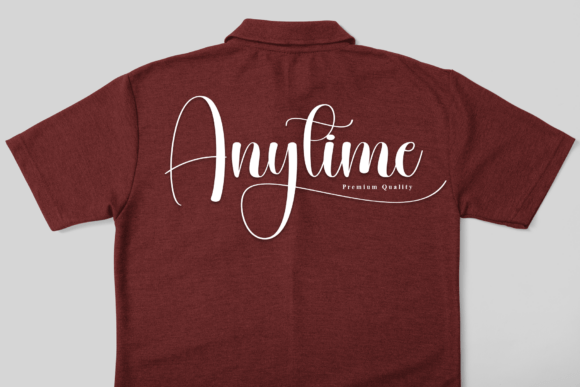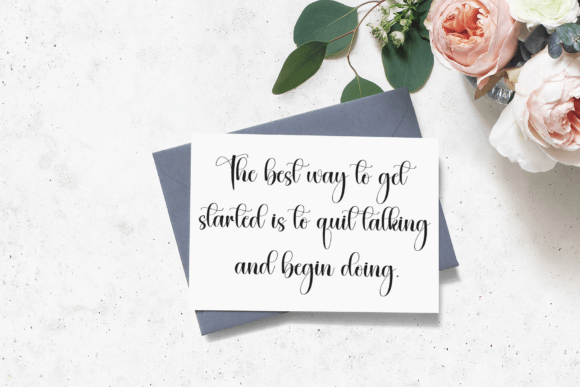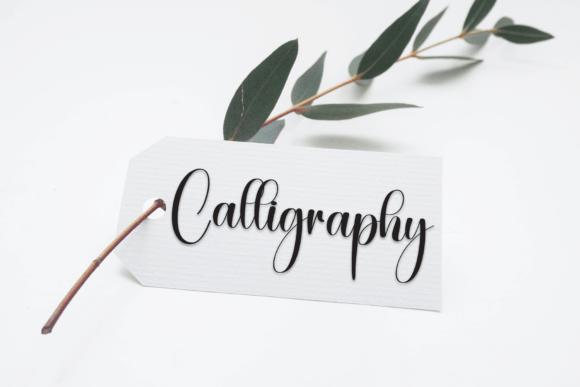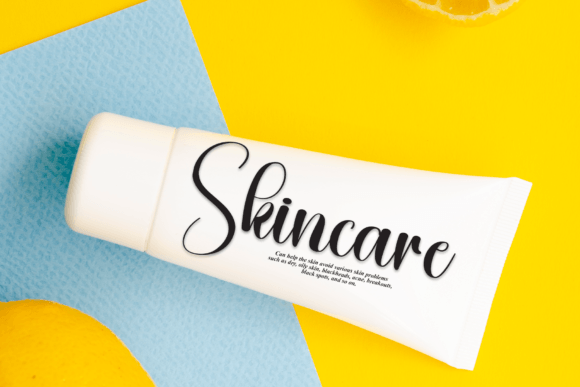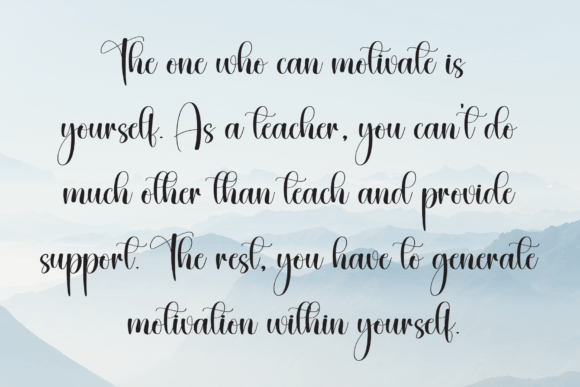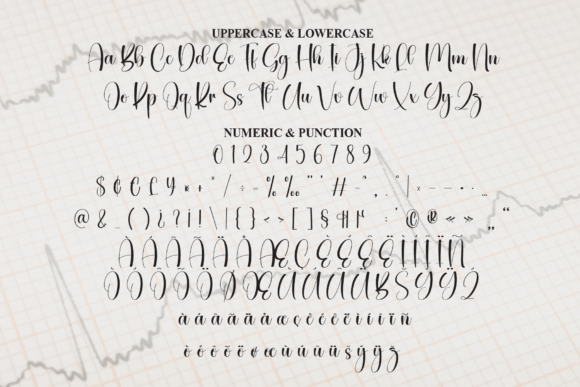
Introduction to Magnitude Font
Have you ever been brainstorming for hours, struggling to find the perfect font for your creative project? You scroll through your design resources, searching for that elusive combination of elegance and playfulness. And then, like a breath of fresh air, you stumble upon the Magnitude Font. This beautiful handwritten font is the perfect addition to your design arsenal, offering a unique and charming feel that’s sure to elevate your next project.
As a designer, you know how crucial it is to have high-quality fonts at your fingertips. The Magnitude Font is a game-changer, providing a free download that’s perfect for invitations, greeting cards, and any other design that needs a personal touch. With its smooth, flowing letters and transparent background, this font is a must-have for any creative project.
Key Features of Magnitude Font
- Unique, modern design style perfect for making a statement in creative projects
- Designed with attention to detail and precision for a high-end look
Honest Review: Magnitude Font
I recently had the chance to work with the Magnitude Font, a popular design resource among creatives. I was excited to see if it lived up to its reputation.
Here are my thoughts on what works well: ✨ The font is incredibly versatile and works beautifully for both print and digital projects. It’s a high-quality design resource that’s perfect for any creative project. The transparent background makes it easy to integrate into your designs, and the free download option is a huge bonus.
Some of the key features that stood out to me include:
- Extremely versatile and adaptable
However, I did encounter some limitations: ⚠️ The font can be quite heavy, which may not be suitable for projects that require a more delicate look. Additionally, the free version has some limitations on the number of devices it can be used on.
Overall, I’m impressed with the Magnitude Font and would definitely recommend it for any creative project. With a little caution when it comes to its weight and usage limitations, it’s a fantastic design resource to have in your toolkit.
Tips for Getting the Most Out of Magnitude Font
When using Magnitude Font, consider the following tips to get the most out of it:
– Use the font in combination with a transparent background to create a high-quality design.
– Experiment with different font sizes and styles to add visual interest to your design.
– Use the font in conjunction with other design resources to create a unique and creative project.
Magnitude Font is a versatile design resource that can be used in a variety of creative projects, including:
– Business cards and marketing materials.
– Social media graphics and ads.
– Web design and development projects.